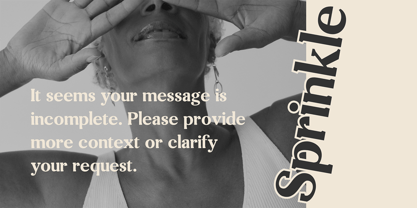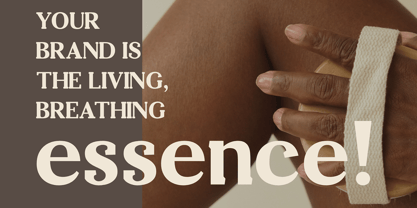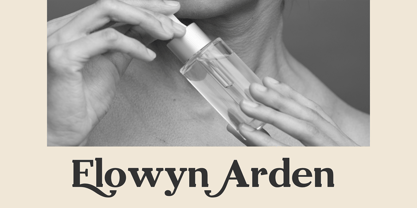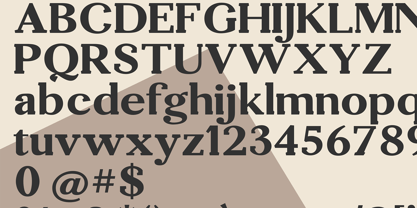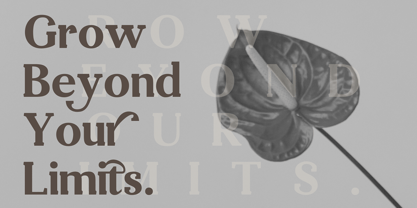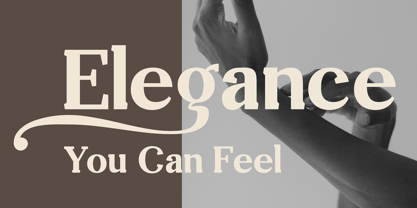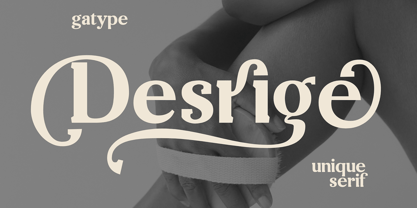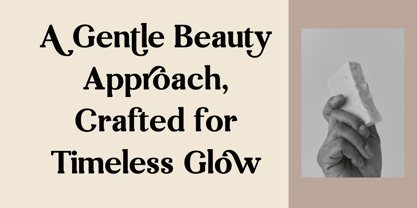
Desrige
Die Schriftfamilie Desrige wurde von khaidir entworfen und von Gatype veröffentlicht. Desrige enthält 1 Stile. Mehr über diese Familie
t's a beautiful font that will engage your audience and make your promotions and projects stand out. It comes with different ligature characters. Bring your brand to life and add a touch of modernity and style with the Desrige font. customize it for your title, logo, business card, printed quote, all kinds of invitations, cards, packaging and your website or social media branding. Please contact us if you have any questions, we are happy to help you!